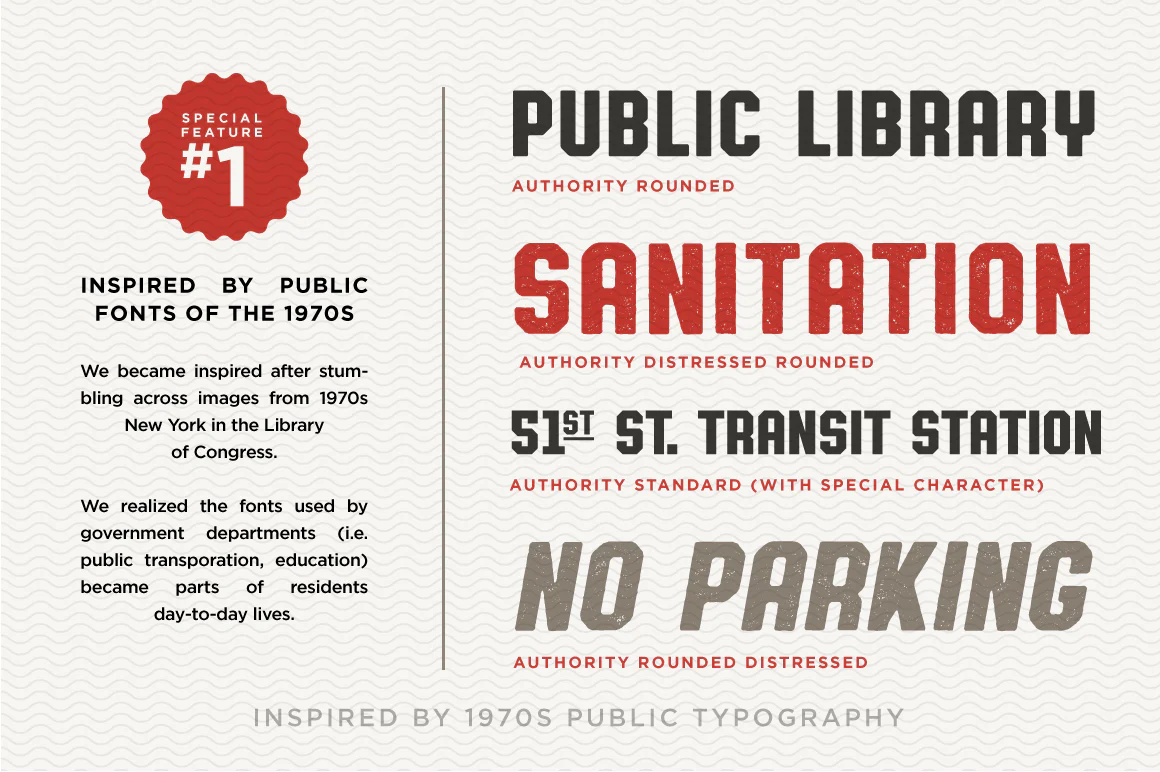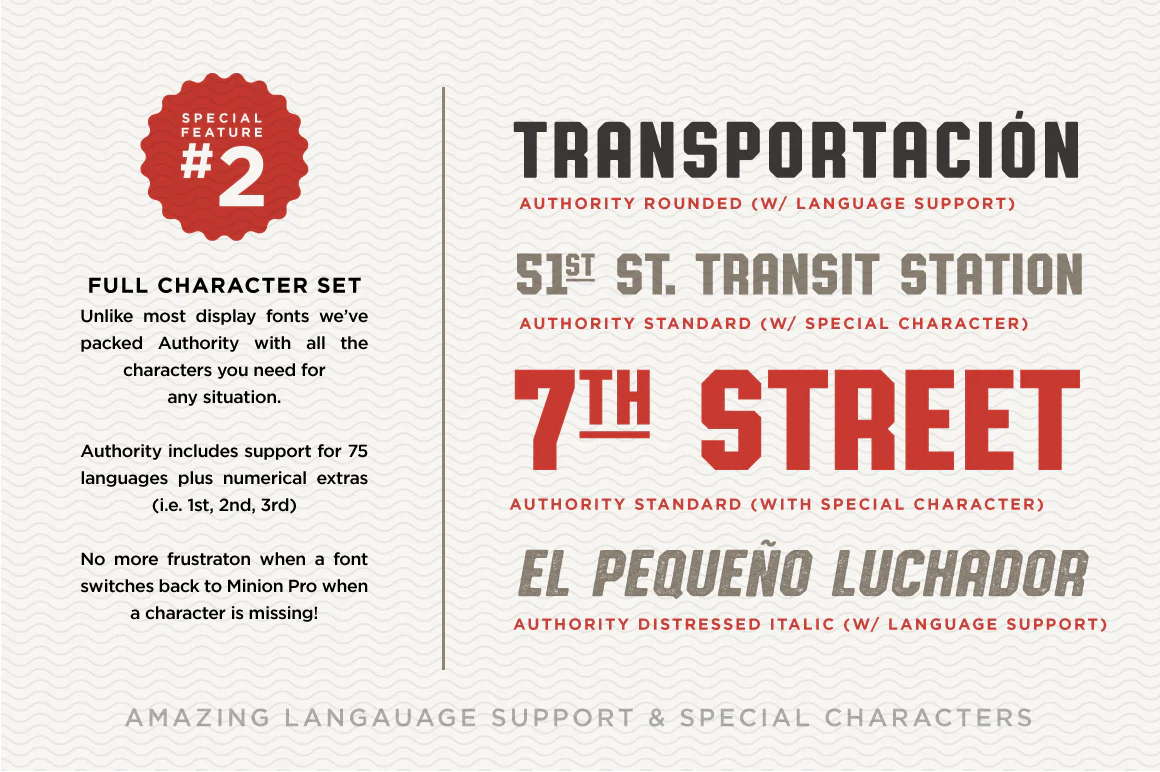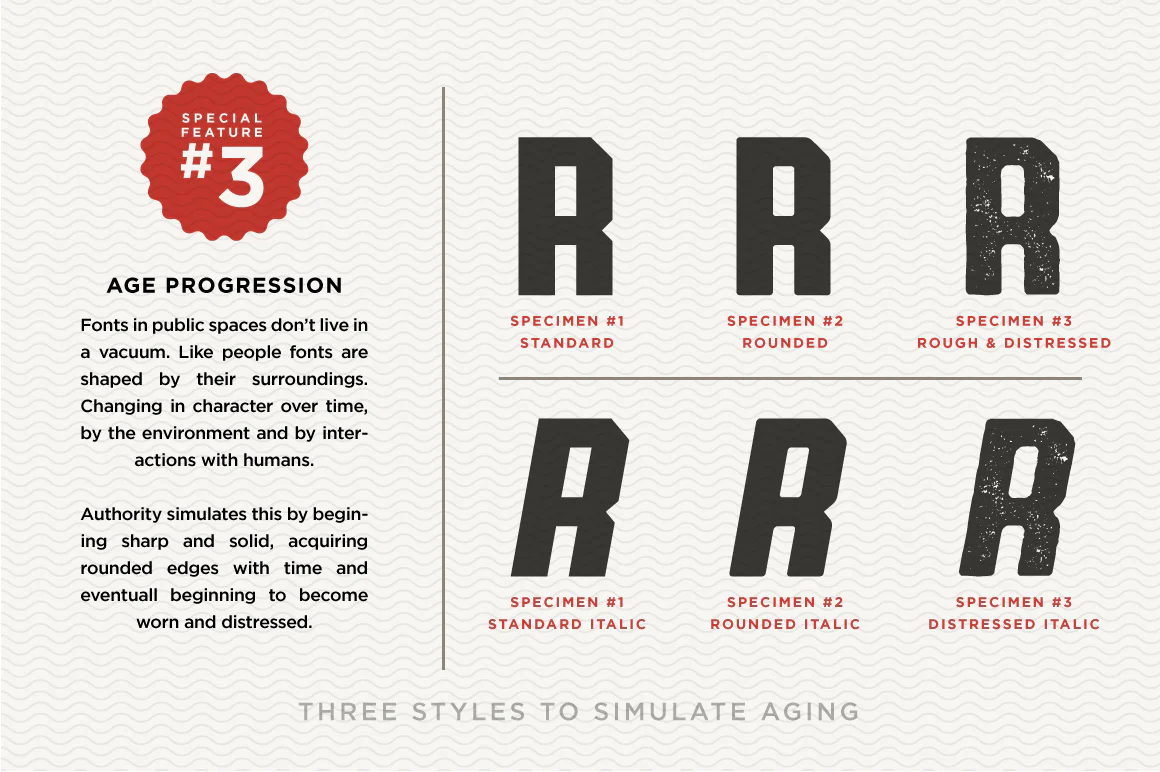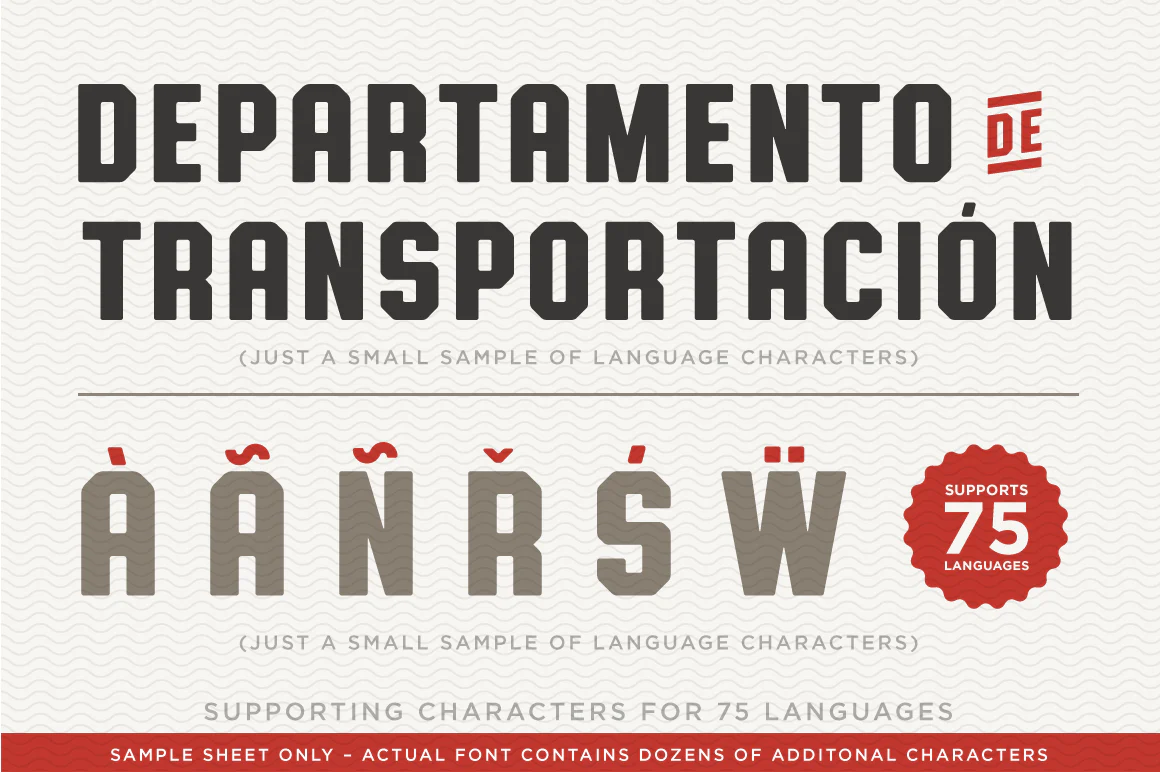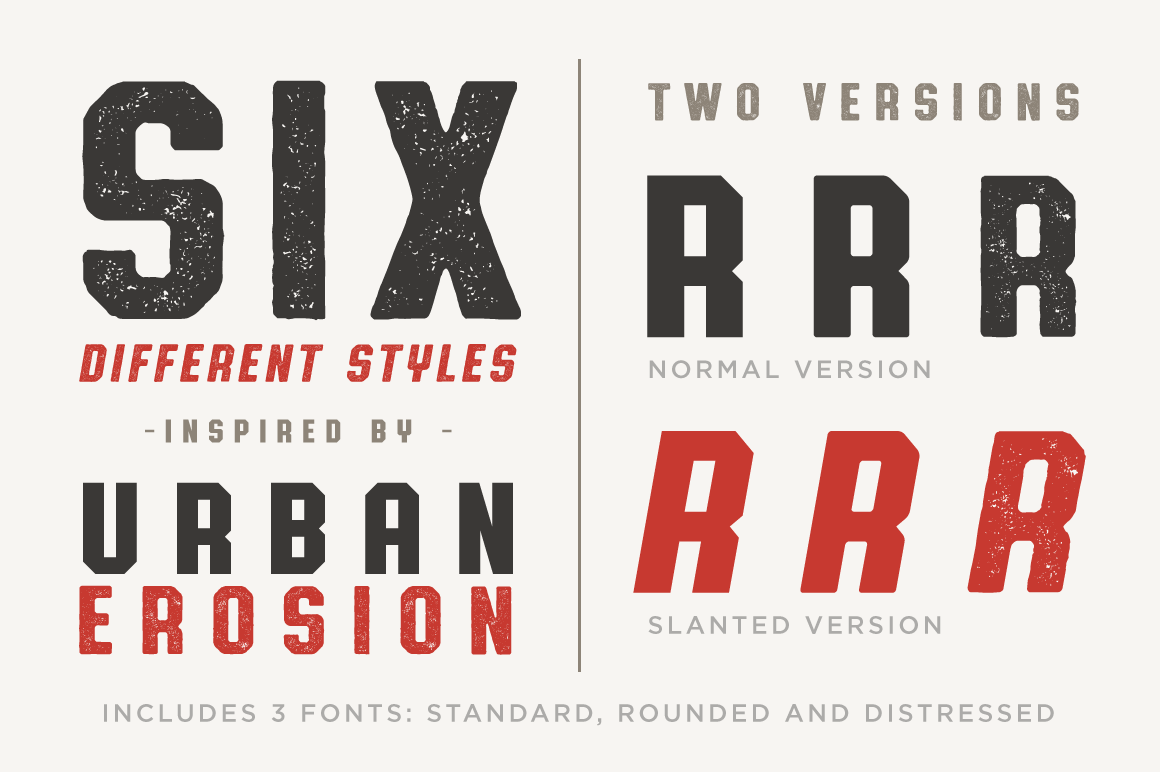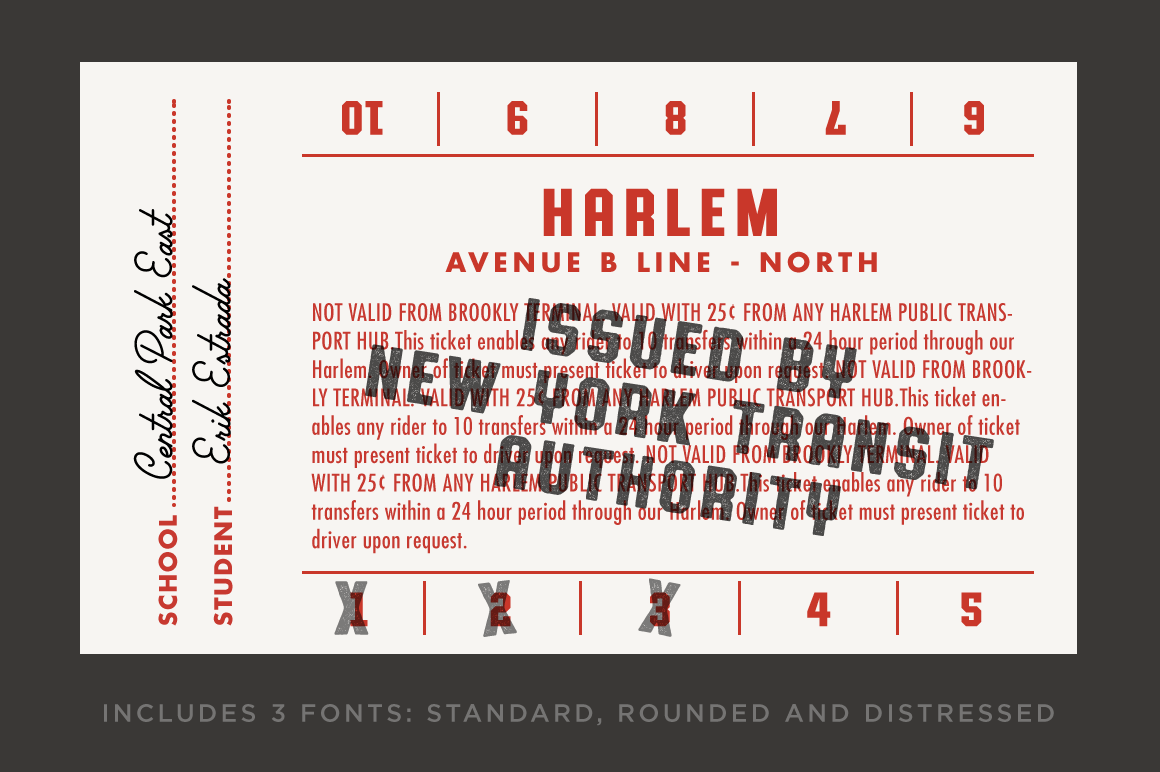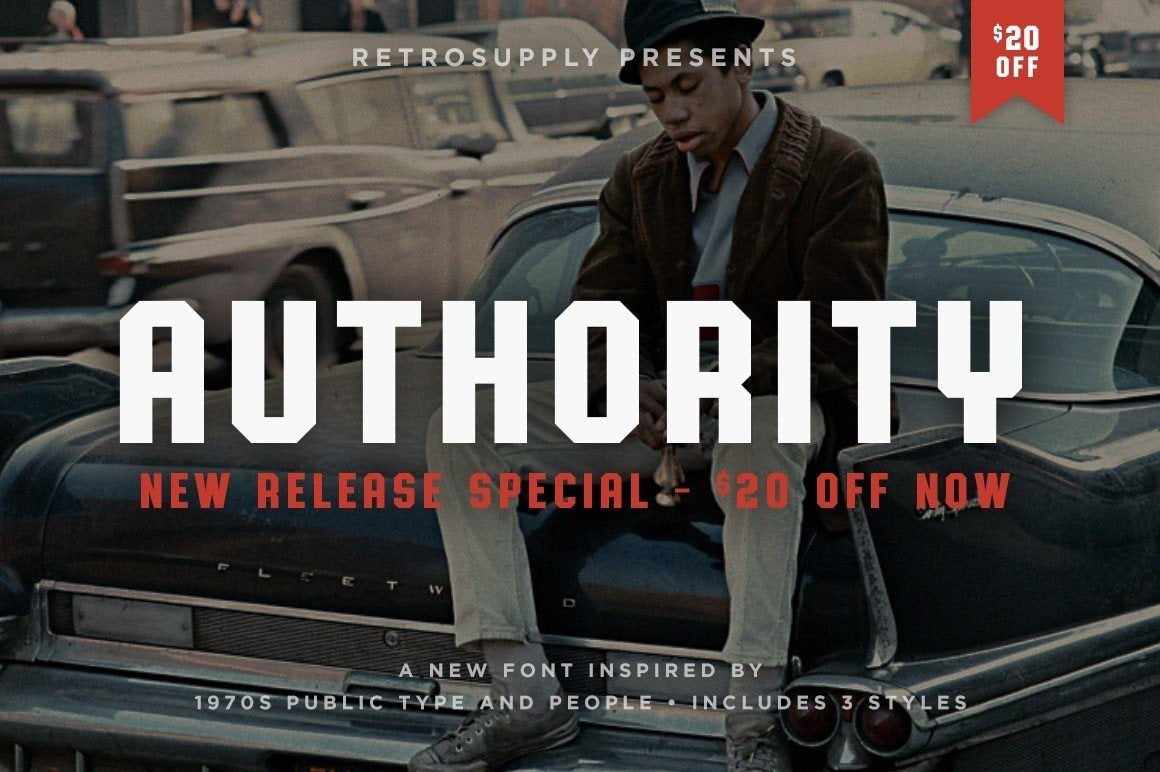
Government-Inspired Vintage Font
Authority pays tribute to the almost unnoticed but powerful effect type has on the way we make our way through life in public places.Perfect for
- Authentic and inspired by 1970s New York government typography used in schools and transportation
- Includes 6 typefaces and 3 styles (Standard, Rounded and Distressed)
- Language support for 75 western languages
- 3 styles included to simulate the natural aging of the font in public spaces
From waiting on a cold morning to catch the 307 to Morton West High School, to the rain and snow worn stencil on a postal box. Public typography is a part of the little spaces in your lives where life actually happens.
Government designed fonts were chosen to communicate quickly and clearly — to help grease the gears of the day-to-day grind.
Authority beckons back to these days with its mildly condensed feel, squared corners and strong feel.
We've also added another dimension to the typeface by creating a typeface for each time period in the fonts life including: Standard (freshly printed), Rounded (Slightly worn and used) and Aged (worn down by the day to day interactions with the world).
Use it for bold, striking headlines and subheads. Use it for the base of logos. Use it to bring Authority to your work.